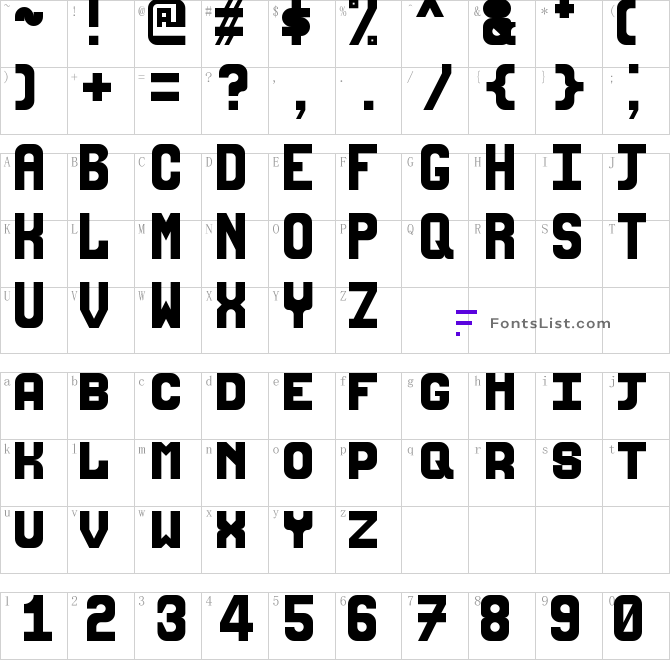
- Font Name:anandala
anandala-Regular.ttf is a very beautiful artistic font, anandala-Regular.ttf is widely used in the design and printing of various books and pictures,anandala-Regular.ttf has a strong visual impact,anandala-Regular.ttf is a commonly used font in newspapers, magazines and books, and is used in posters, e-commerce Poster design, store design, logo design, font design and other fields.anandala-Regular.